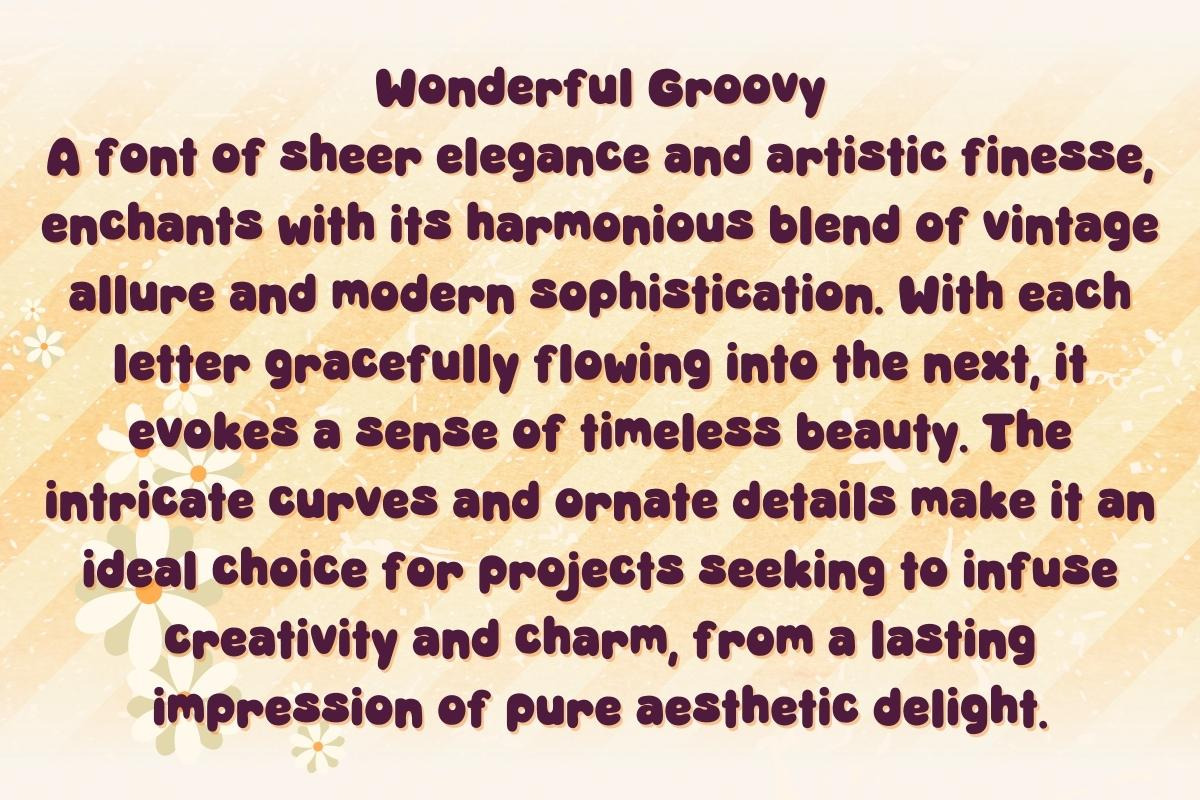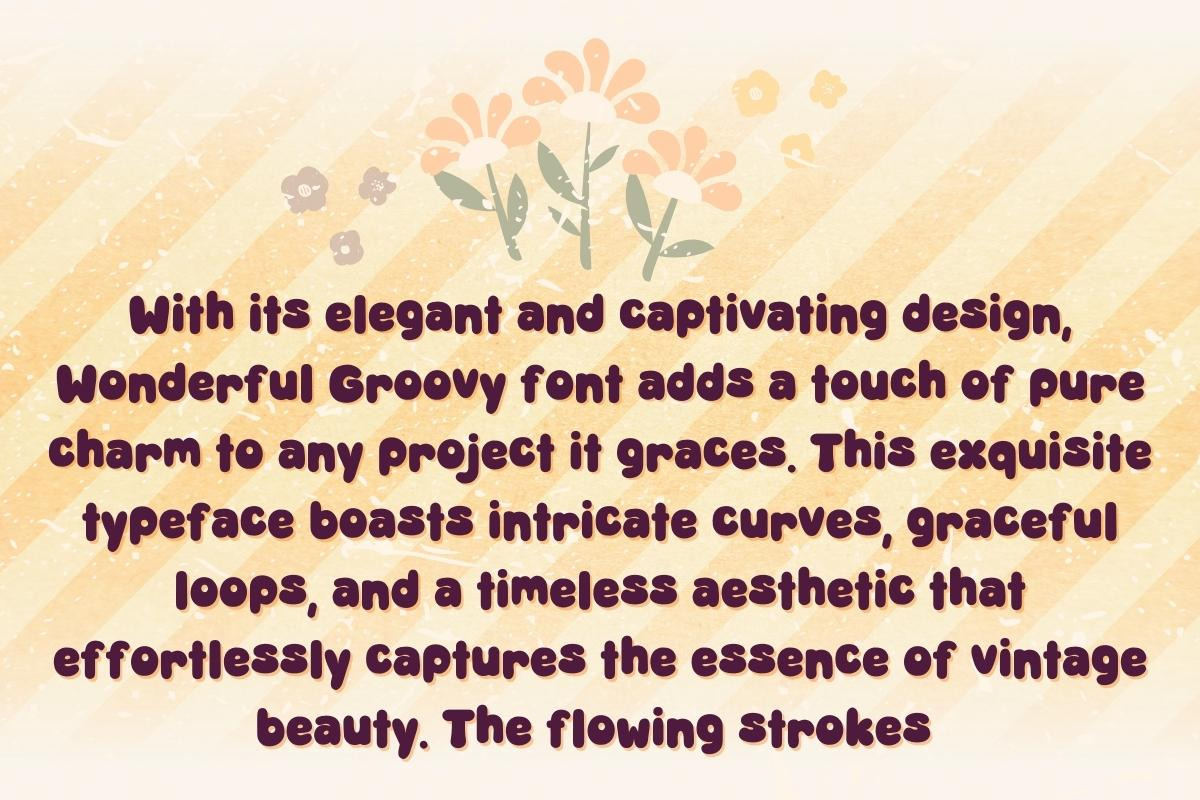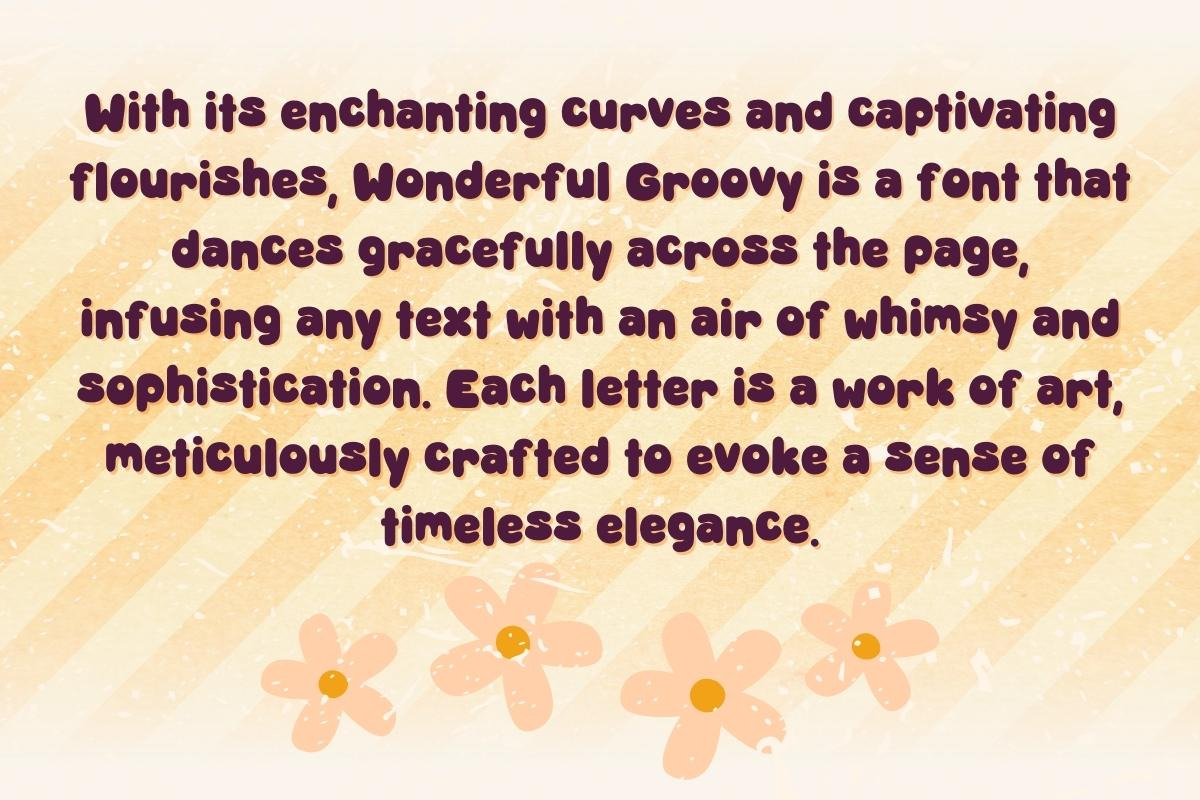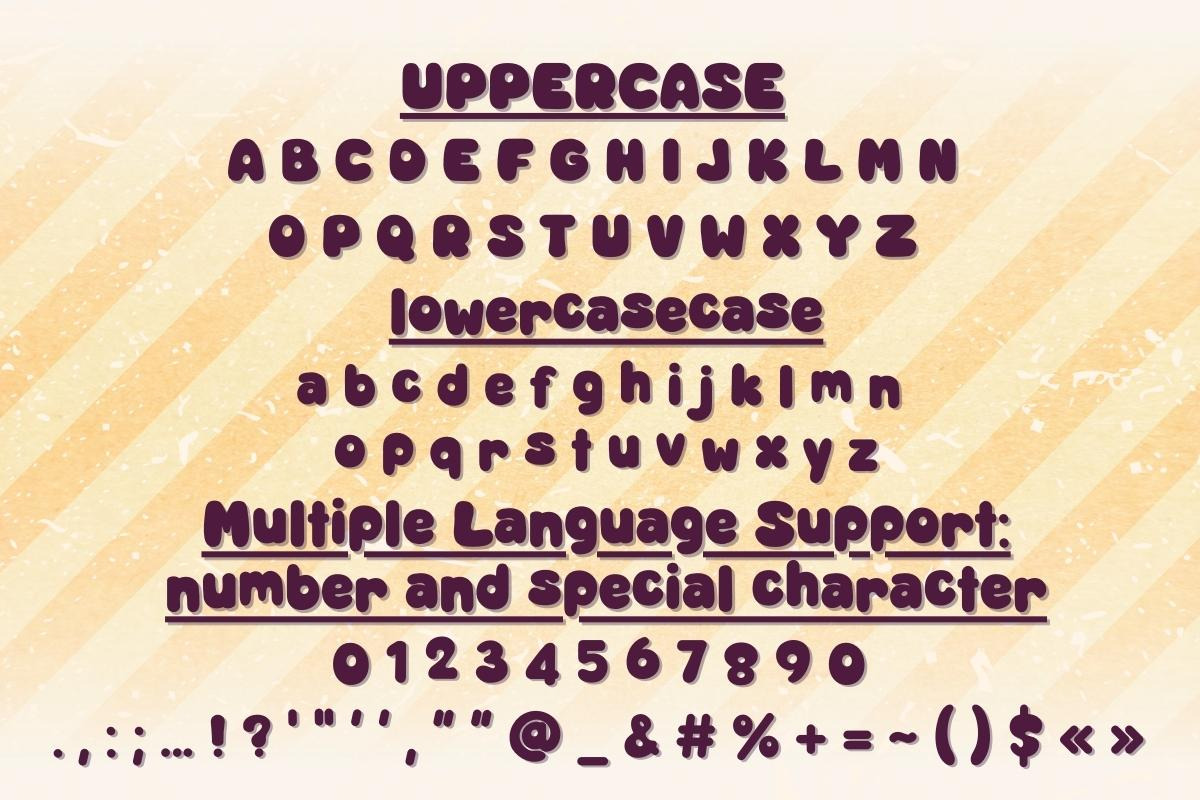
Wonderful Groovy - Handwritting
Artistic details of Wonderful Groovy make it a perfect choice for creating stunning wedding invitations, captivating posters, and evocative branding materials. Whether used in print or digital media, this font radiates an air of sophistication and creativity, leaving a lasting impression of sheer loveliness."